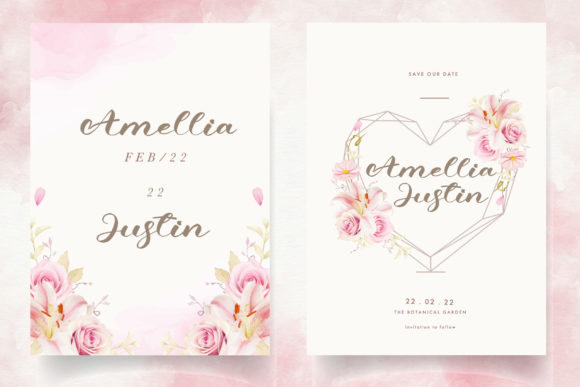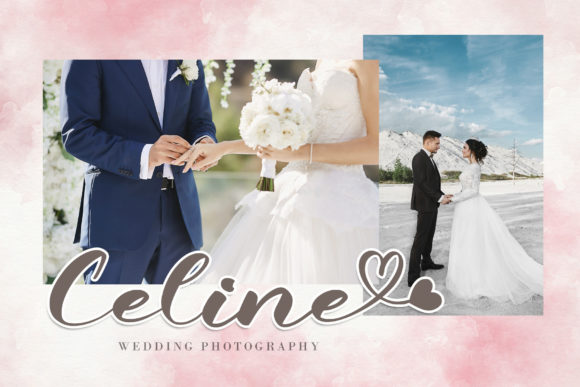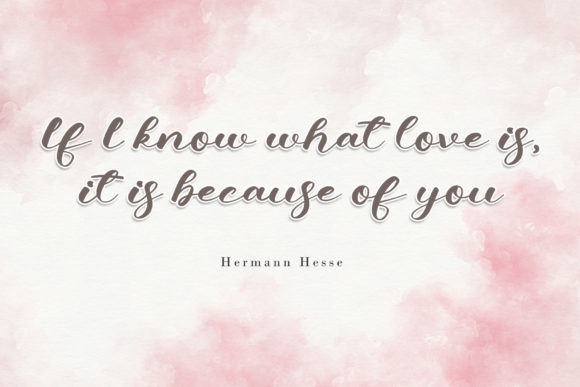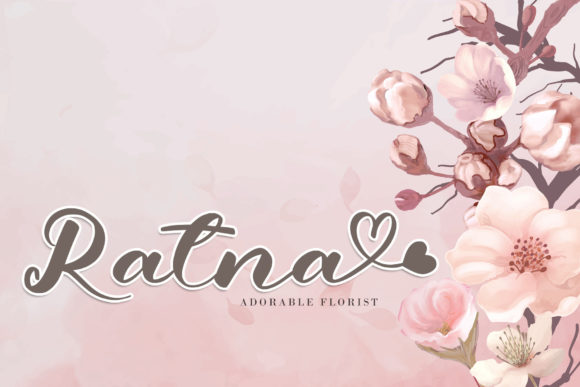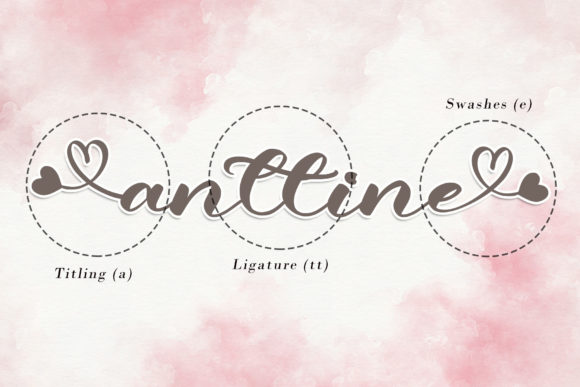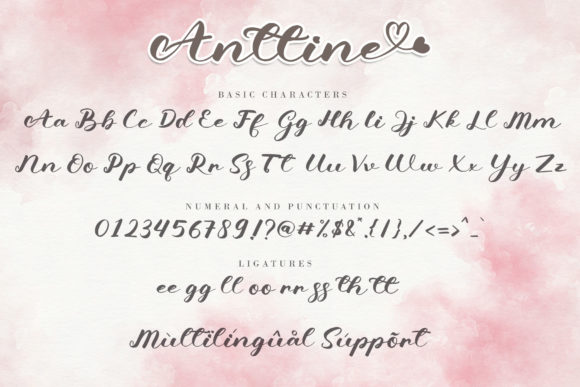
Introducing Anttine Font: The Ultimate Romantic Calligraphy Typeface
Are you looking for a font that can add a touch of luxury and romance to your design projects? Look no further than Anttine Font! This beautiful calligraphy typeface is designed to make your designs stand out with its unique and elegant style. In this article, we’ll take a closer look at Anttine Font and explore its features, benefits, and uses.
What is Anttine Font?
Anttine Font is a romantic and sweet calligraphy typeface that features characters that dance along the baseline. This elegant font is perfect for designers who want to add a touch of luxury and sophistication to their designs. Whether you’re working on a wedding invitation, a branding project, or a packaging design, Anttine Font is sure to impress.
Key Features of Anttine Font
- PUA Encoded: Anttine Font is PUA encoded, which means you can access all of the amazing glyphs and ligatures with ease. This makes it easy to use and customize the font to suit your design needs.
- Ligatures and Glyphs: The font features a range of beautiful ligatures and glyphs that can be used to add a touch of elegance and sophistication to your designs.
- Romantic and Sweet: Anttine Font has a romantic and sweet feel that’s perfect for designs that require a touch of whimsy and charm.
- Luxury Spark: The font is designed to add a luxury spark to any design project, making it perfect for high-end branding and packaging designs.
Benefits of Using Anttine Font
There are many benefits to using Anttine Font in your design projects. Here are just a few:
- Elegance and Sophistication: Anttine Font adds a touch of elegance and sophistication to any design project, making it perfect for high-end branding and packaging designs.
- Unique and Creative: The font’s unique and creative style makes it stand out from other fonts, ensuring that your designs will be noticed.
- Easy to Use: Anttine Font is easy to use and customize, thanks to its PUA encoding and range of glyphs and ligatures.
- Versatile: The font is versatile and can be used in a range of design projects, from wedding invitations to branding and packaging designs.
Uses of Anttine Font
Anttine Font is a versatile font that can be used in a range of design projects. Here are just a few examples:
- Wedding Invitations: Anttine Font is perfect for wedding invitations, adding a touch of romance and elegance to your designs.
- Branding and Packaging: The font is ideal for high-end branding and packaging designs, adding a touch of luxury and sophistication.
- Stationery and Greeting Cards: Anttine Font can be used to create beautiful stationery and greeting cards that are sure to impress.
- Digital Designs: The font can also be used in digital designs, such as social media graphics and website headers.
Tips for Using Anttine Font
Here are a few tips for using Anttine Font in your design projects:
- Pair with Other Fonts: Anttine Font can be paired with other fonts to create a unique and creative look.
- Experiment with Colors: The font looks great in a range of colors, so don’t be afraid to experiment and find the perfect color scheme for your design.
- Use Ligatures and Glyphs: Make the most of Anttine Font’s ligatures and glyphs to add a touch of elegance and sophistication to your designs.
Anttine Font is a beautiful and elegant calligraphy typeface that’s perfect for designers who want to add a touch of luxury and romance to their designs. With its PUA encoding, range of glyphs and ligatures, and romantic and sweet feel, Anttine Font is sure to impress. Whether you’re working on a wedding invitation, a branding project, or a packaging design, Anttine Font is a great choice.